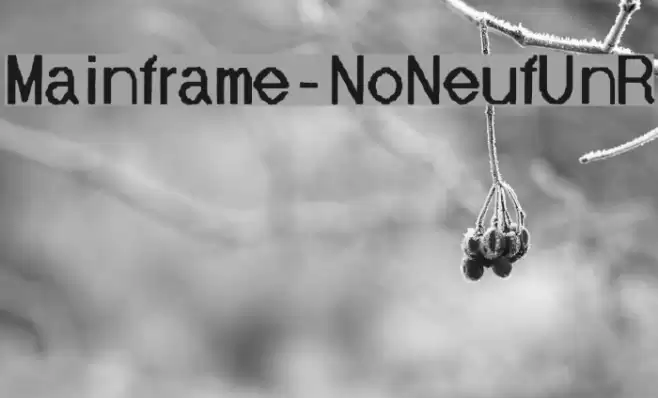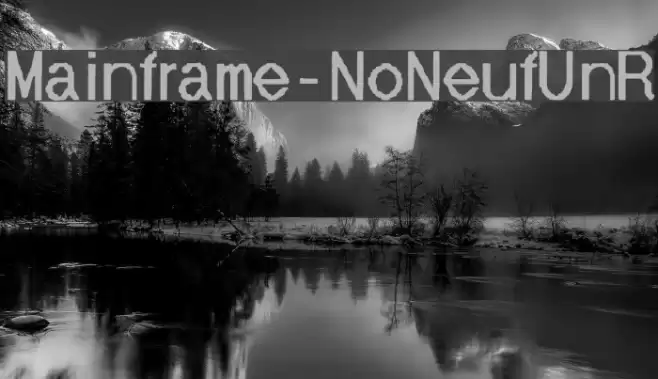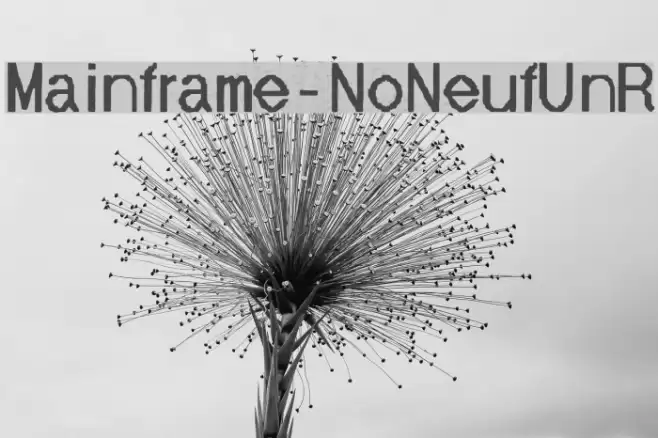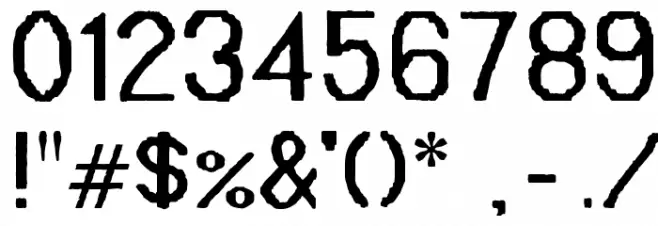
Mainframe-NoNeufUnR Font
Mainframe-NoNeufUnR Description
This font features a bold and rugged design, characterized by its uneven and distressed appearance. The uppercase letters are strong and impactful, with a slightly rough texture that gives them a hand-crafted feel. The lowercase letters maintain this rugged style, offering a consistent look throughout. Numbers and special characters follow the same design principles, ensuring uniformity. The font's unique style makes it stand out, ideal for projects that require a bold statement. Its distressed look suggests a vintage or industrial theme, perfect for creative and artistic endeavors.
A bold, rugged font with a distressed, hand-crafted appearance from Uncategorized fonts.
- Proposed Projects: Ideal for posters, album covers, branding, and any design needing a bold, vintage touch.
- Overall Style: Vintage, Industrial